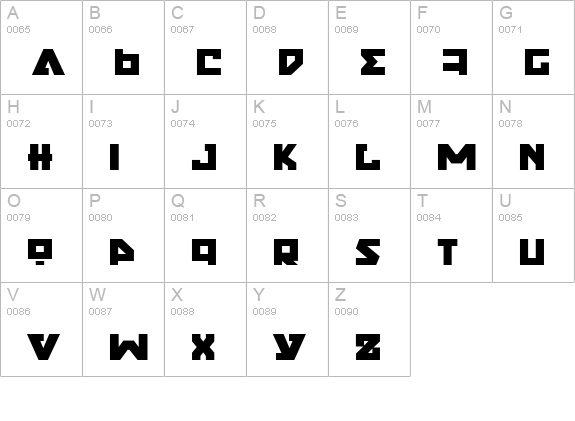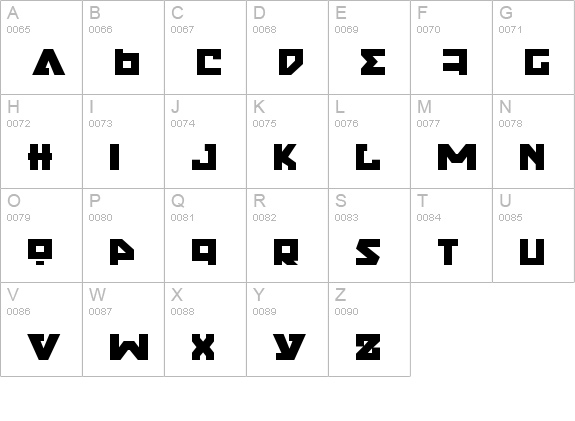
Introducing Nyet font - a versatile and modern typeface that showcases a perfect balance between elegance and readability. With its sleek lines and contemporary aesthetic, Nyet font is perfect for a wide range of design projects, from branding to editorial design. What sets Nyet font apart is its unique blend of sophistication and simplicity, making it suitable for both professional and creative applications. Whether you're designing a sleek logo or crafting an eye-catching poster, Nyet font is sure to elevate your work to the next level. And the best part? Nyet font is completely free to download at FontsMarket.com! Don't miss out on this opportunity to enhance your design projects with a stylish and versatile typeface that is both modern and timeless. Download Nyet font today and let your creativity soar!